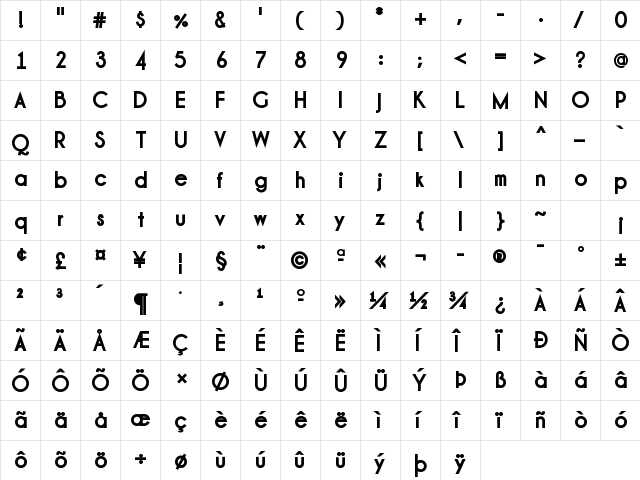
Champagne & Limousines Thick Bold
Design Context for Champagne & Limousines Thick Typeface
Champagne & Limousines Thick is a composed and adaptable typeface that performs quietly and consistently across a wide range of design contexts. The heavy weight commands attention and anchors typographic hierarchies.
Pro Tip: Use Champagne & Limousines Thick in both headline and body roles to test its range before committing to a single application.